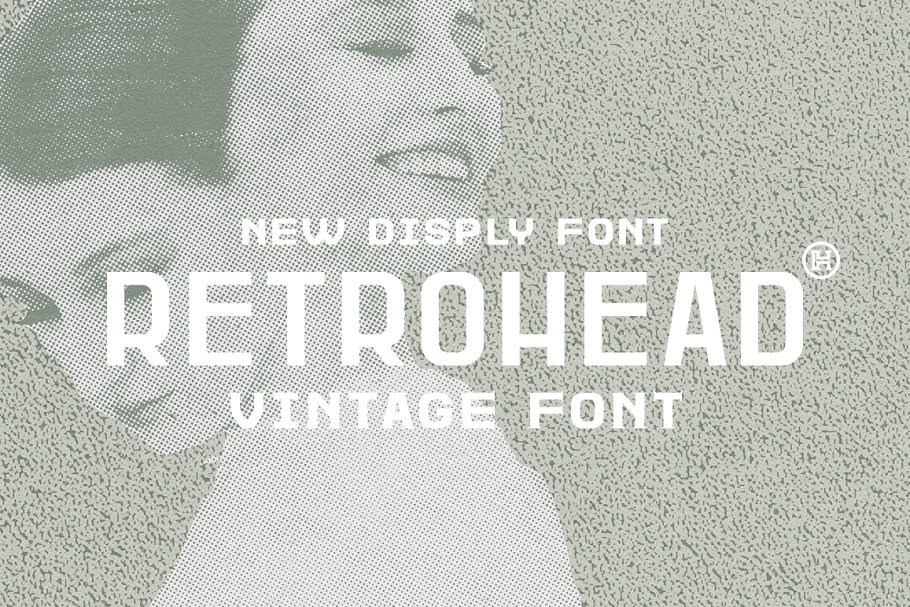
Retrohead Font
This nostalgic typeface is perfect for vintage branding, retro gaming, 80s-themed events, classic arcade games, nostalgic campaigns, vintage merchandise, old-school bars, throwback marketing, and retro-futuristic design applications.
What makes this font exciting is its nostalgic character combined with vintage authenticity, offering designers a time-machine typeface that captures the essence of bygone eras while delivering retro-cool sophistication and throwback visual excellence.
The Retrohead font family includes light, regular, medium, bold, neon, and vintage variations, providing complete nostalgic design solutions for creating authentic retro visual identities.
Whether you're developing vintage entertainment brands or crafting nostalgic design experiences, Retrohead Font Free Download brings exceptional retro atmosphere and vintage authenticity to every application. This nostalgic typeface combines classic typography traditions with contemporary retro design, creating letterforms that inspire memories and celebrate cultural heritage. The font's vintage construction and nostalgia-ready details make it perfect for brands seeking immediate retro recognition.
Retrohead Font features carefully crafted vintage styling with authentic nostalgic character that conveys genuine retro expertise. Each character has been designed with period-appropriate proportions and throwback elements that enhance the classic aesthetic. The font's retro qualities make it particularly effective for entertainment brands and vintage applications.
Professional designers choose Retrohead Font for projects requiring authentic vintage credibility and nostalgic atmosphere. Its retro heritage makes it exceptionally well-suited for gaming companies, entertainment venues, and throwback lifestyle brands. The font's versatile vintage variations allow designers to control the nostalgic intensity, from subtle retro elegance to full throwback celebration.
The complete Retrohead Font package offers extensive vintage ornaments and nostalgic decorative elements that enhance the retro aesthetic. Advanced throwback features allow designers to create complex vintage effects with multiple era-inspired options. This comprehensive nostalgic toolkit ensures designers have everything needed to create authentic retro communications that celebrate the enduring appeal of vintage culture and nostalgic design excellence.